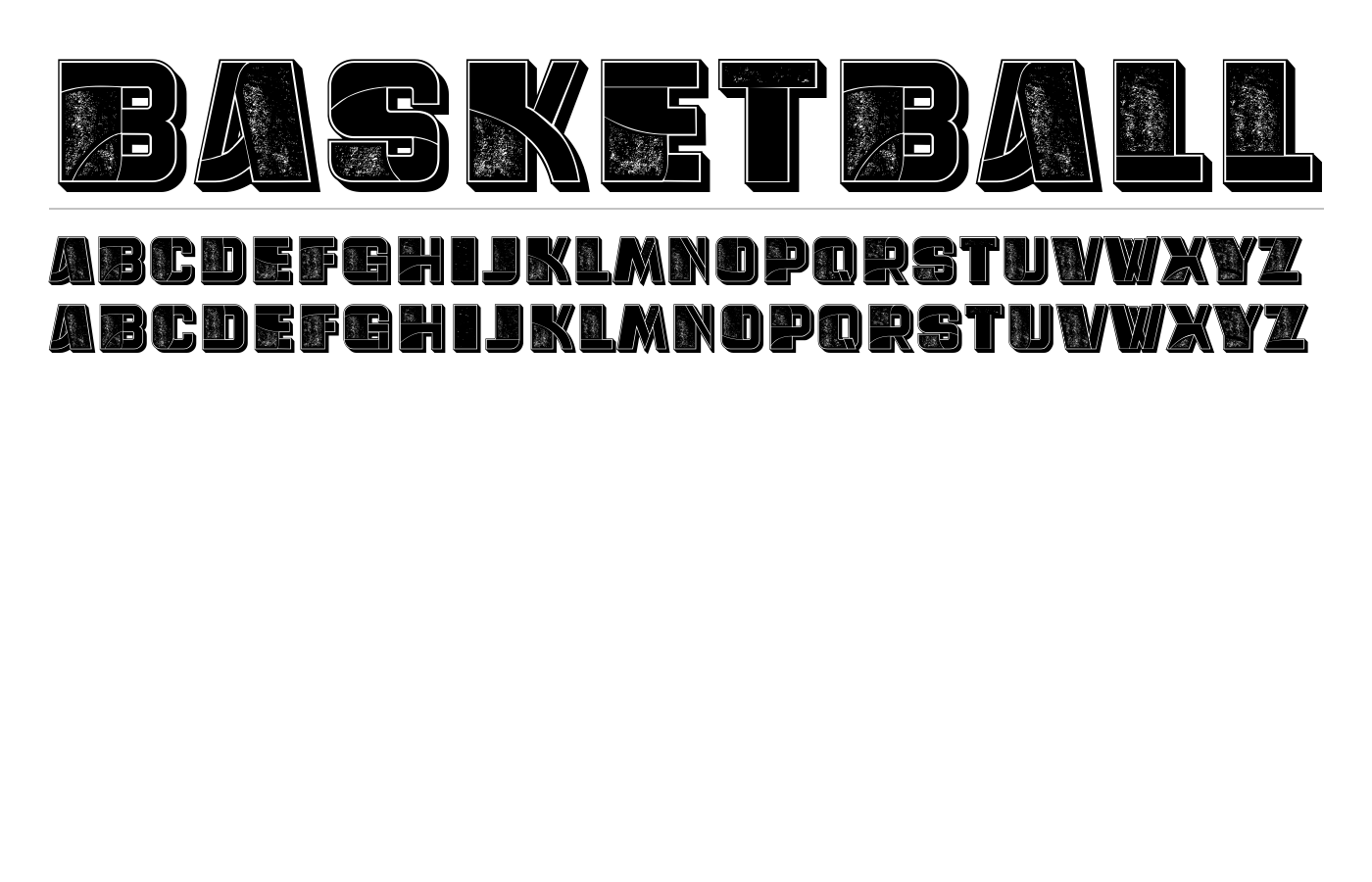
Basketball Font is a bold, blocky display typeface with a sporty and dynamic vibe, featuring a strong geometric structure and three-dimensional shadowing that adds depth. Its heavy weight, uppercase-only style, and textured detailing evoke energetic and vintage athletic spirit, making it perfect for sports branding, team logos, and eye-catching headlines. This font works best where a powerful and rugged look is needed to convey action and excitement.
Basketball Font
About Basketball Font
| Font family | Basketball Font |